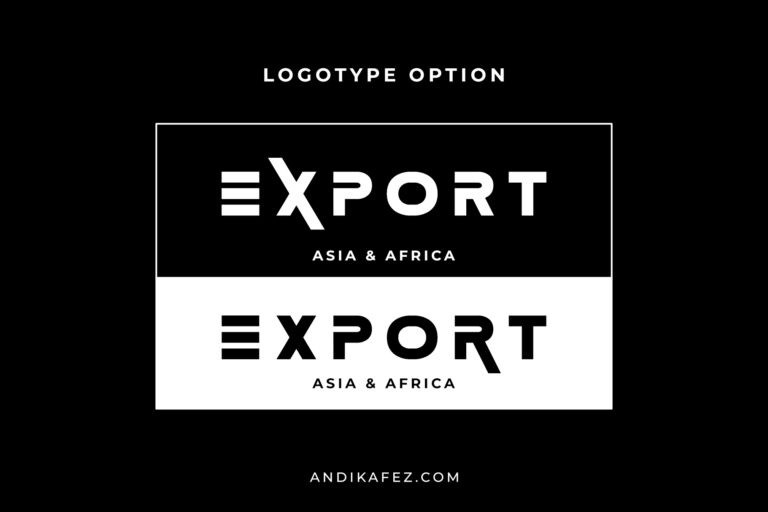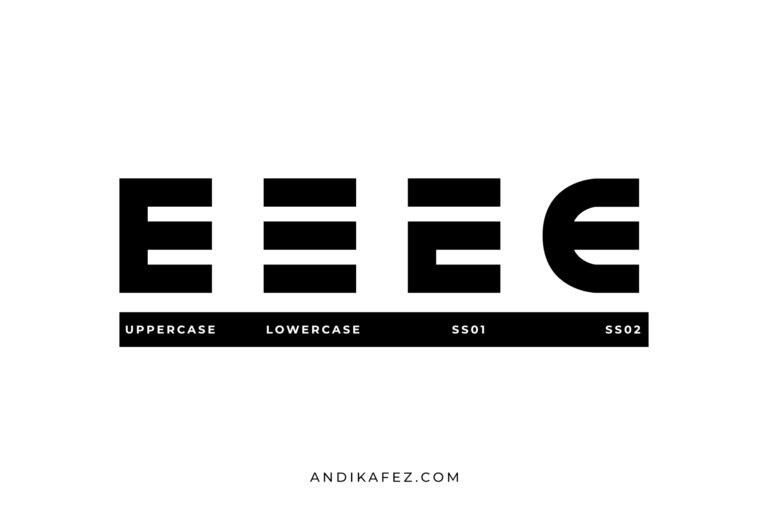
Groupe Font
GROUPE LOGOTYPE sans serif font family is the perfect tool for creators to create impactful things with a different touch.
GROUPE LOGOTYPE contains several weights to give the user an interesting experience when using it. This unique sans serif font family is very good for branding, logo projects, headings, advertising, packaging, web design, print goods and other creative projects.